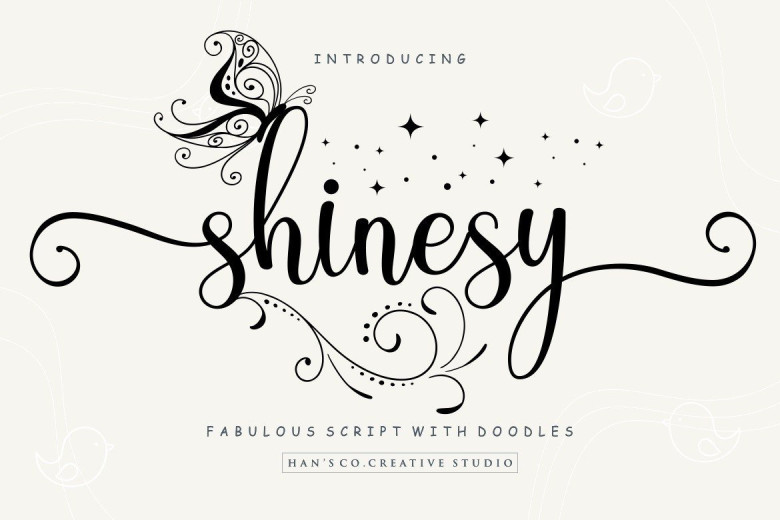
Shinesy Calligraphy Script Font
Introducing Shinesy Calligraphy Script Font is a beautiful and sweet modern script that will turn any design project into a true piece of art. This font also supports multilingual, number and symbol, and many ligatures.